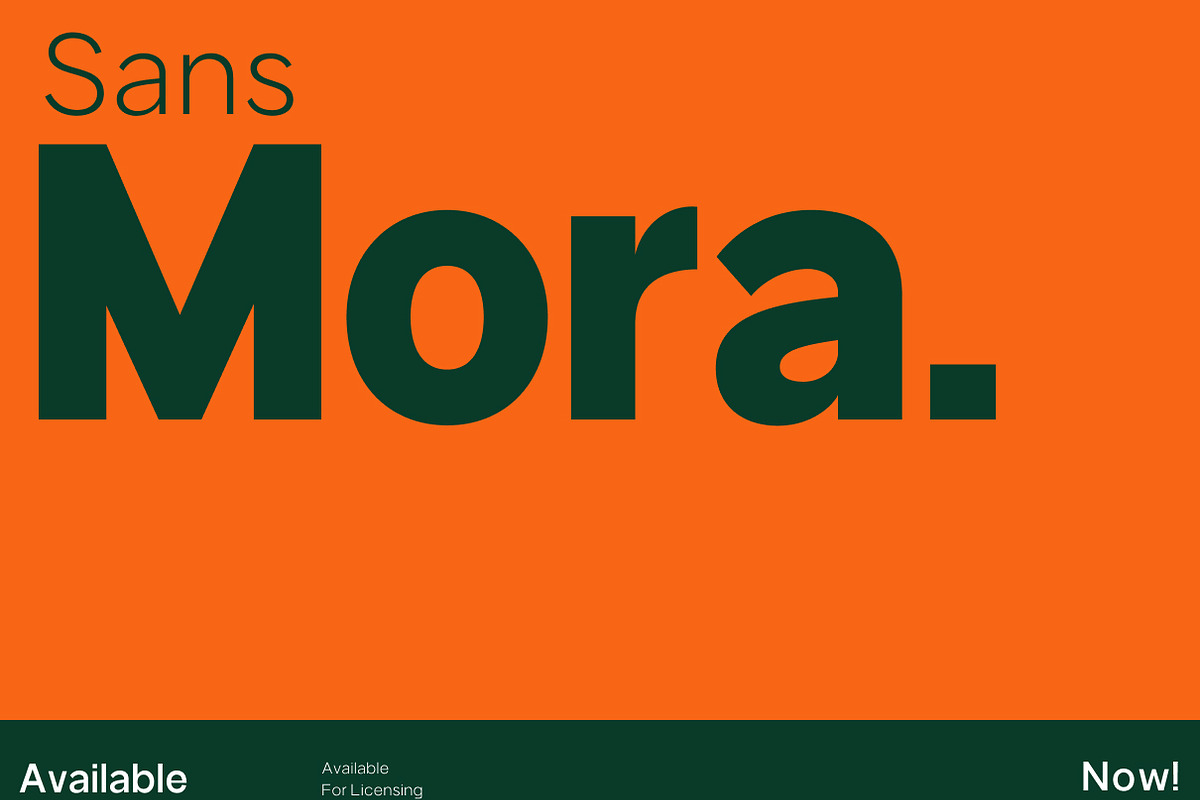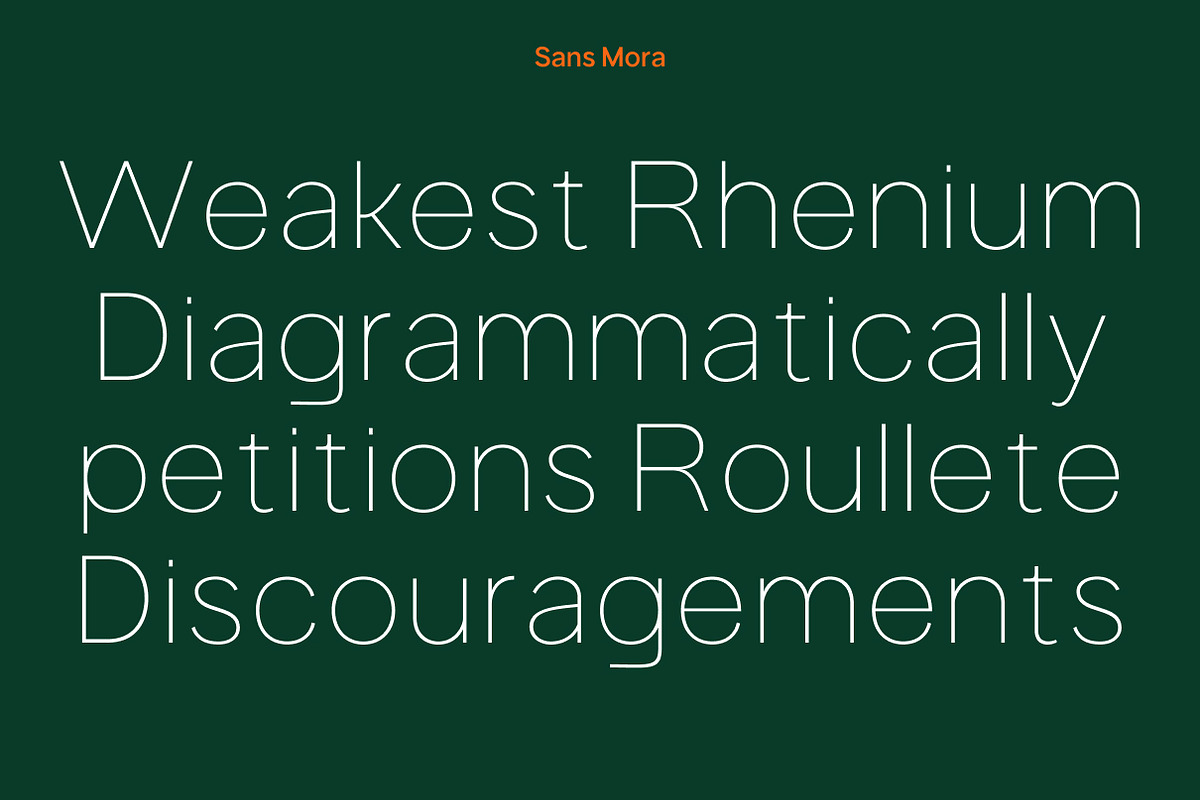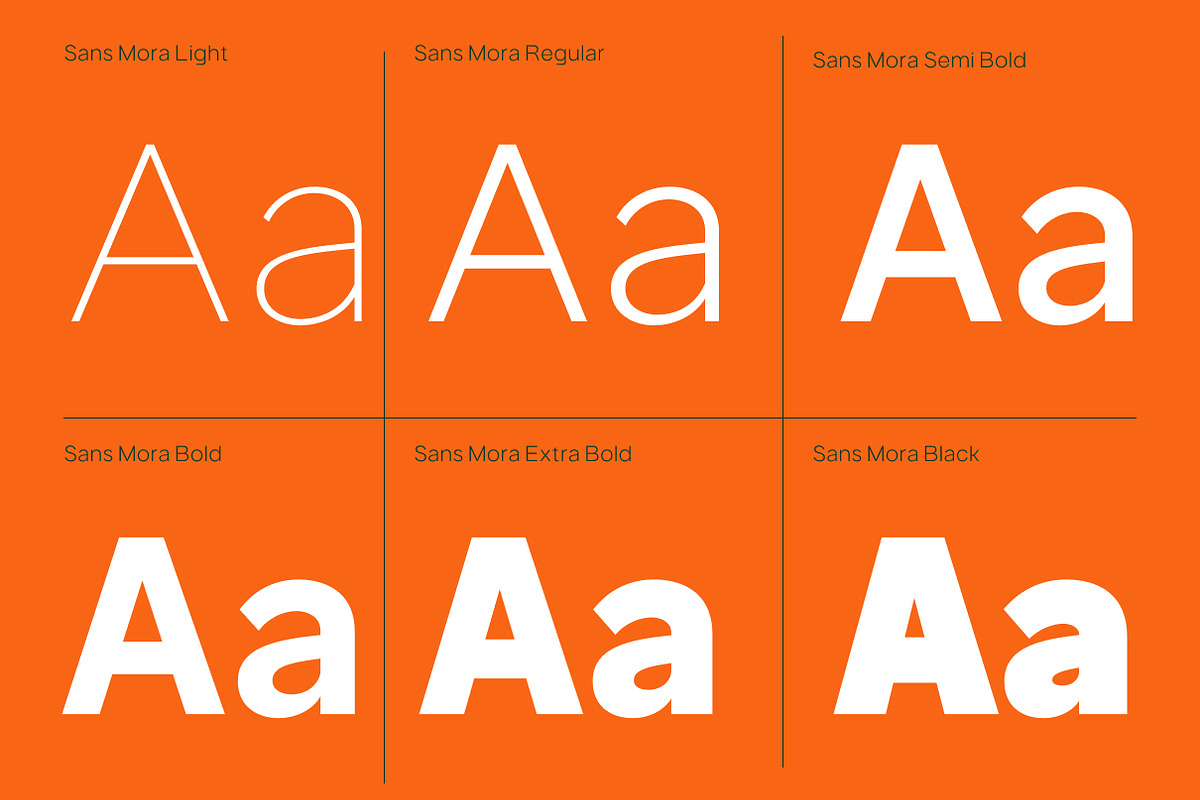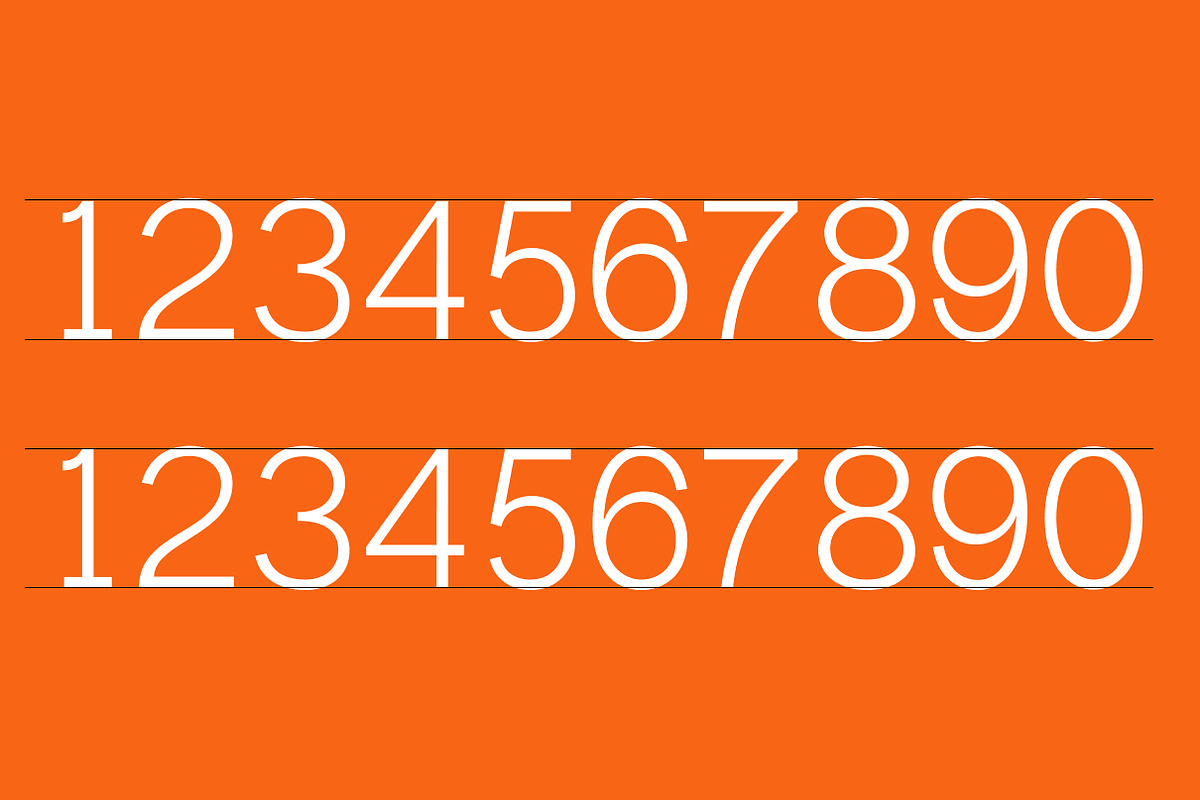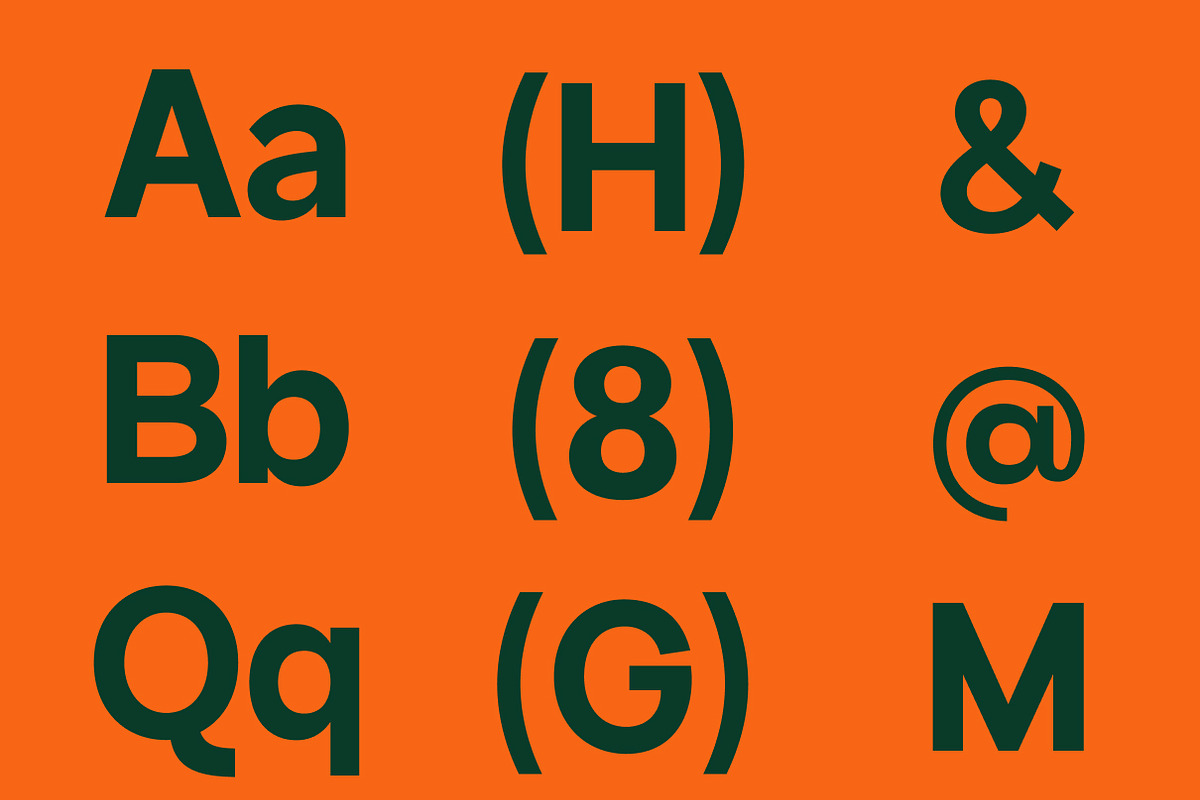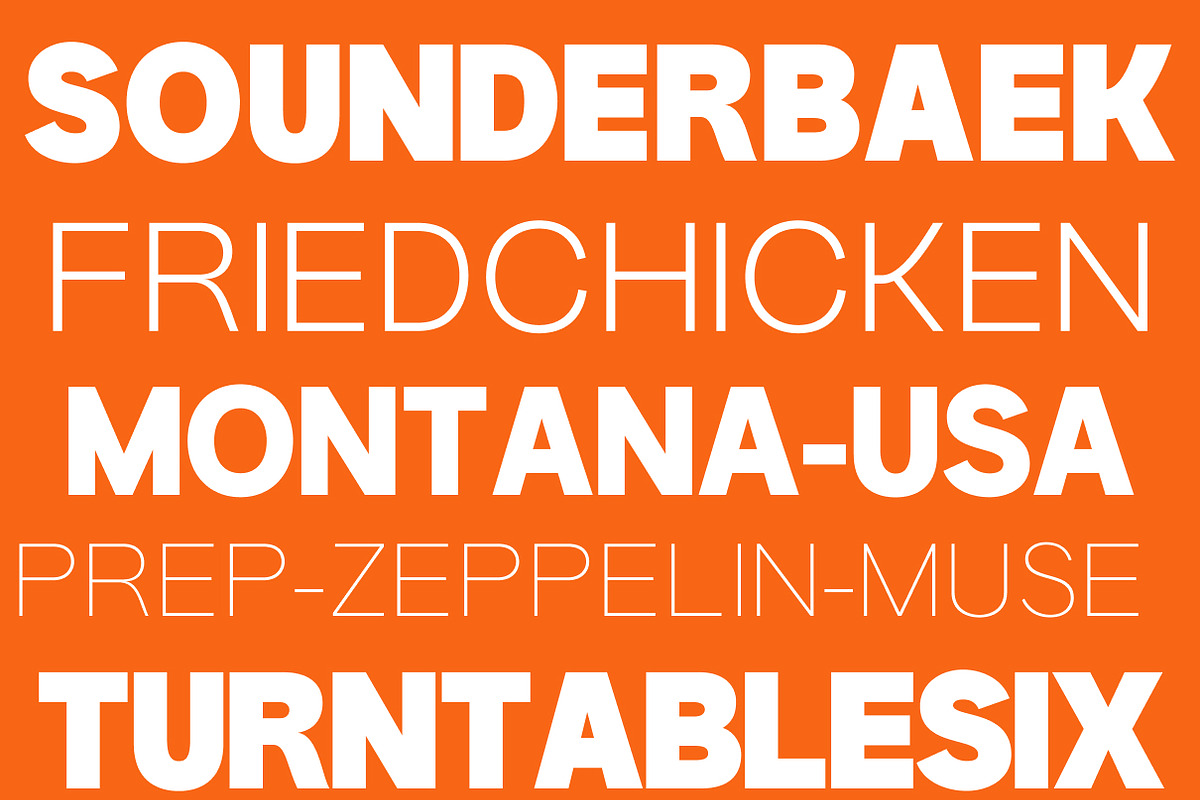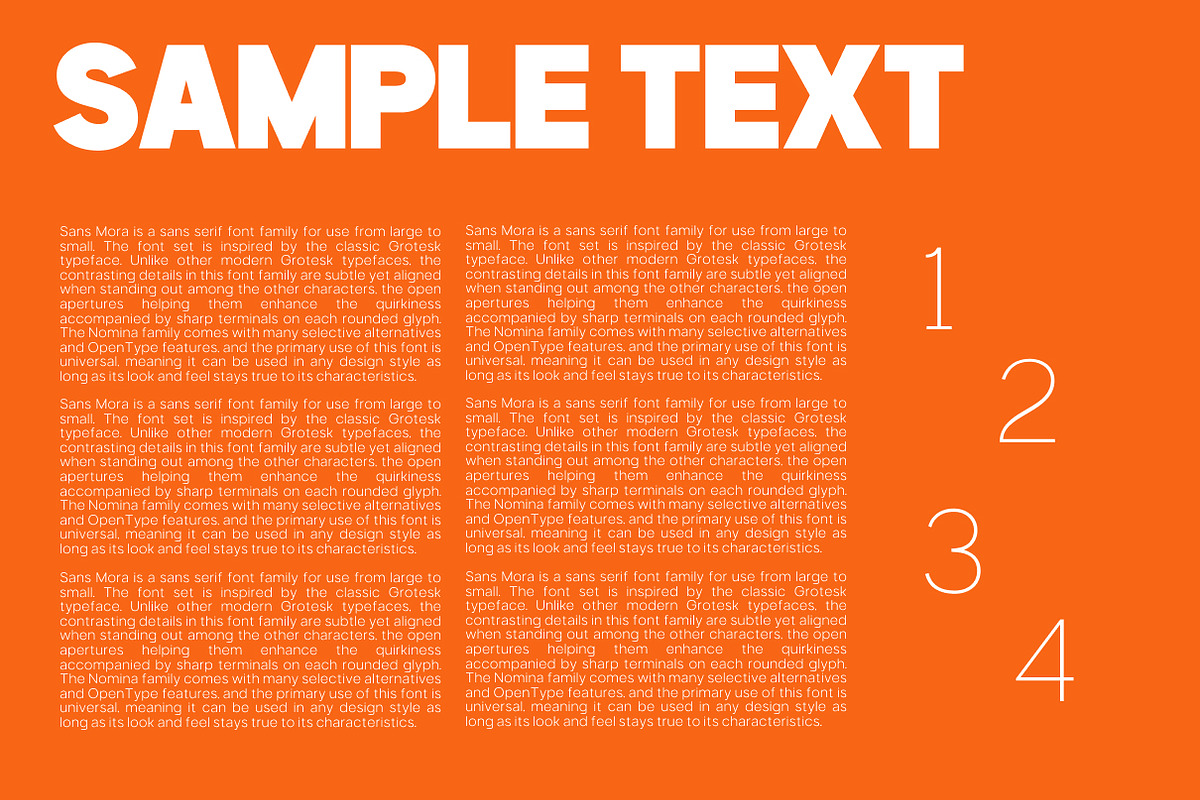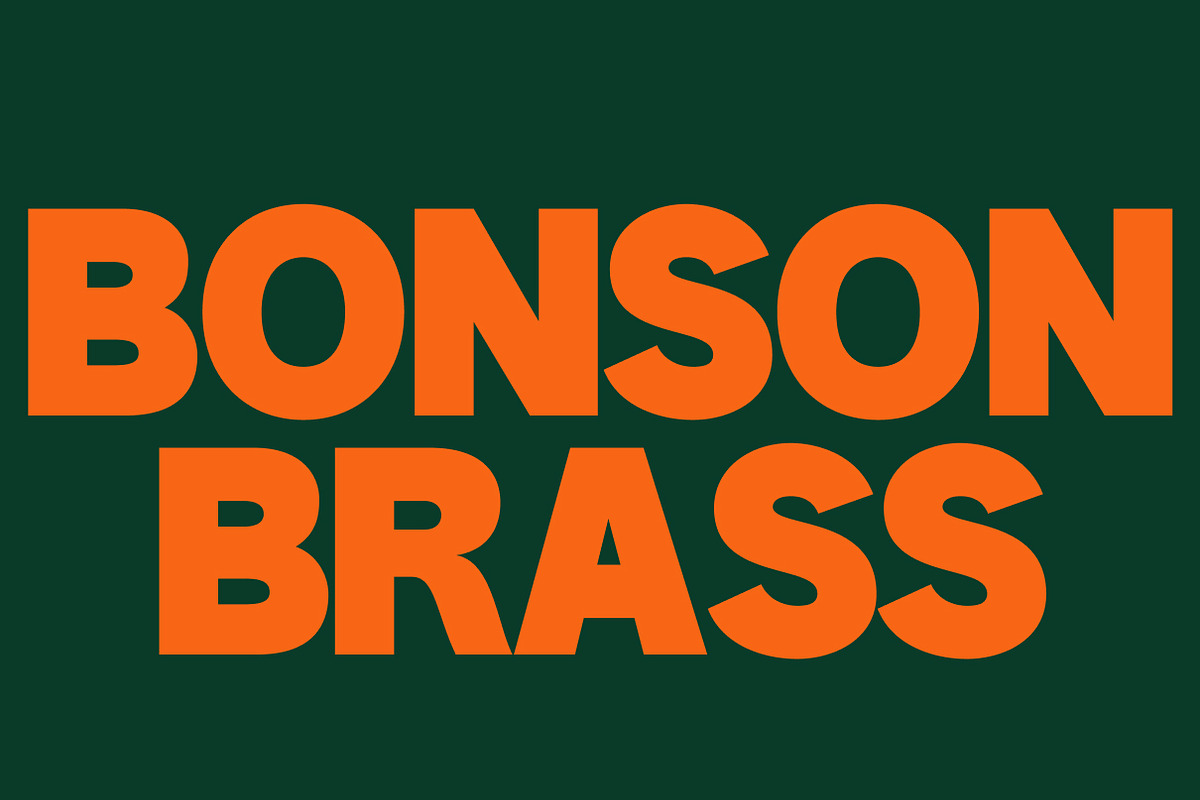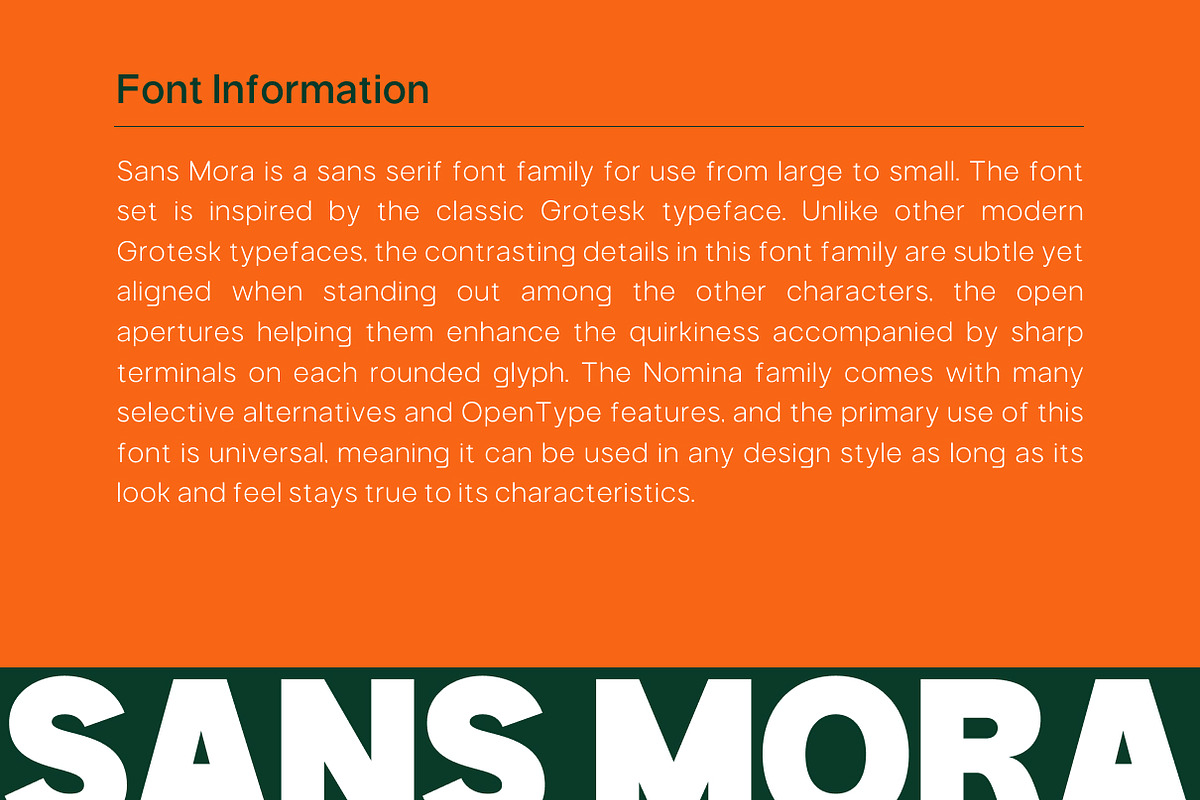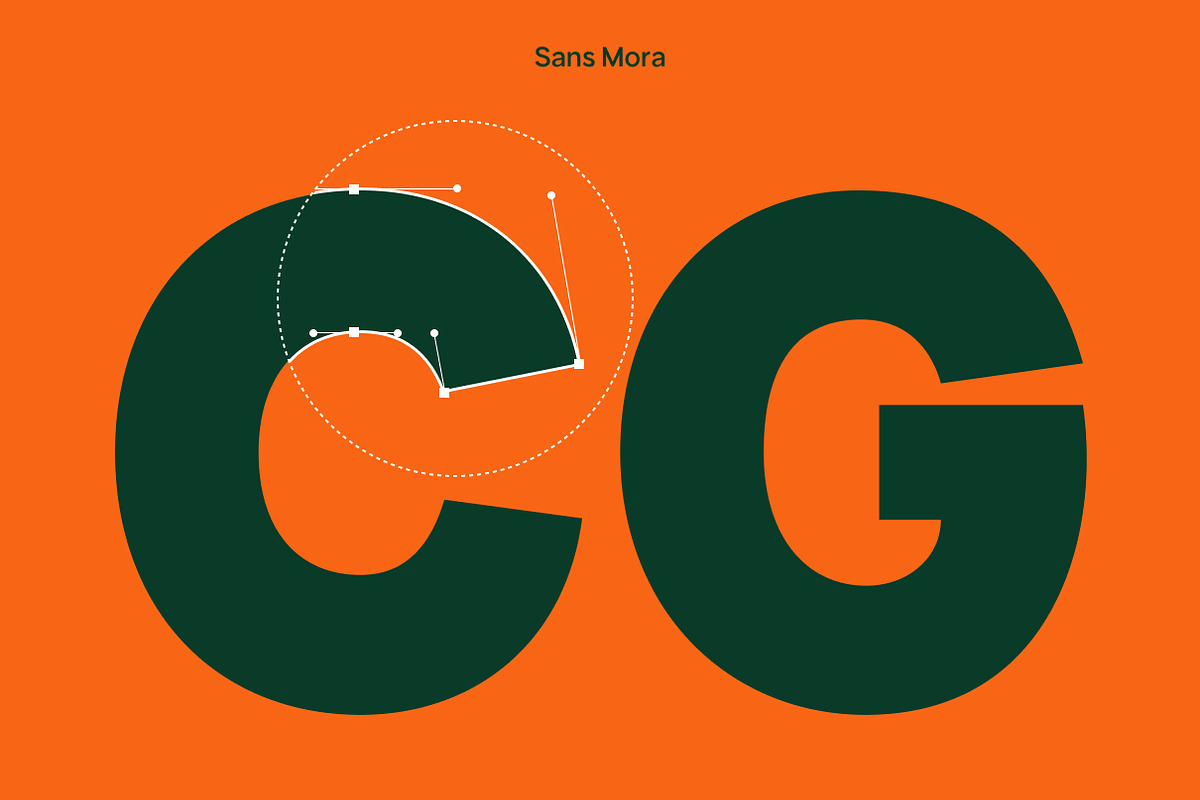
Sans Mora
Sans Mora is a sans serif font family for use from large to small. The font set is inspired by the classic Grotesk typeface. Unlike other modern Grotesk typefaces, the contrasting details in this font family are subtle yet aligned when standing out among the other characters, the open apertures helping them enhance the quirkiness accompanied by sharp terminals on each rounded glyph. The Nomina family comes with many selective alternatives and OpenType features, and the primary use of this font is universal, meaning it can be used in any design style as long as its look and feel stays true to its characteristics.